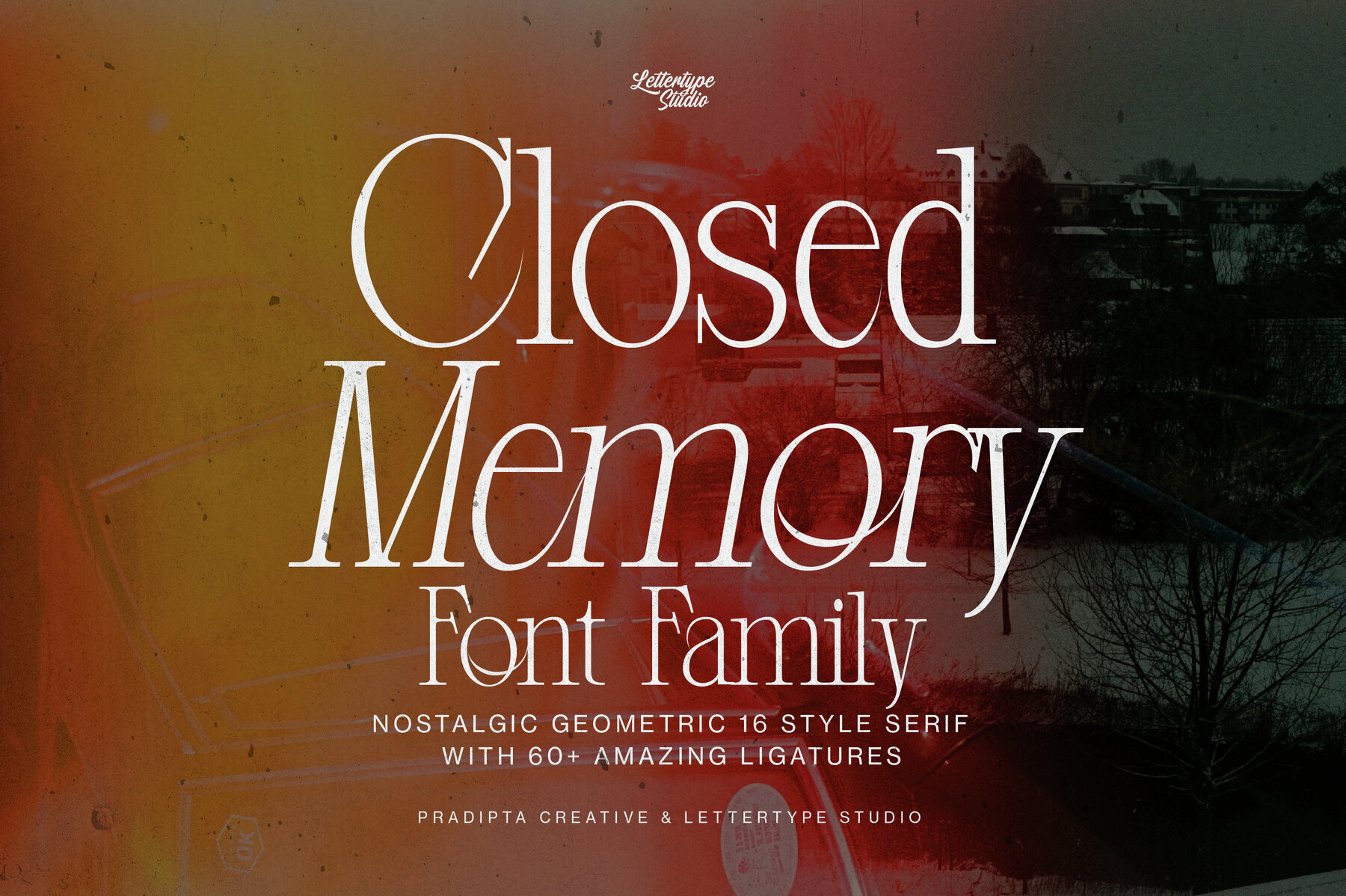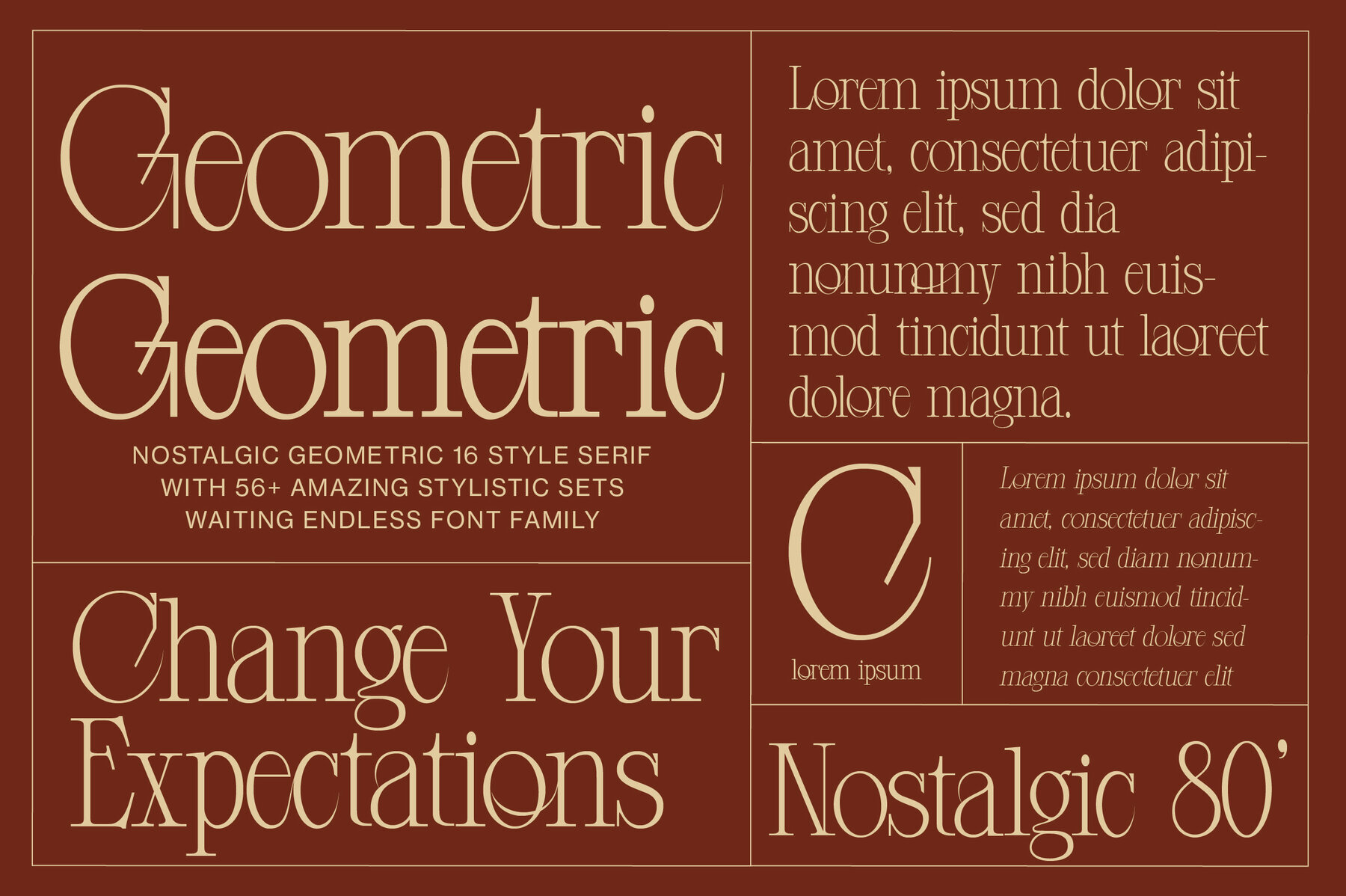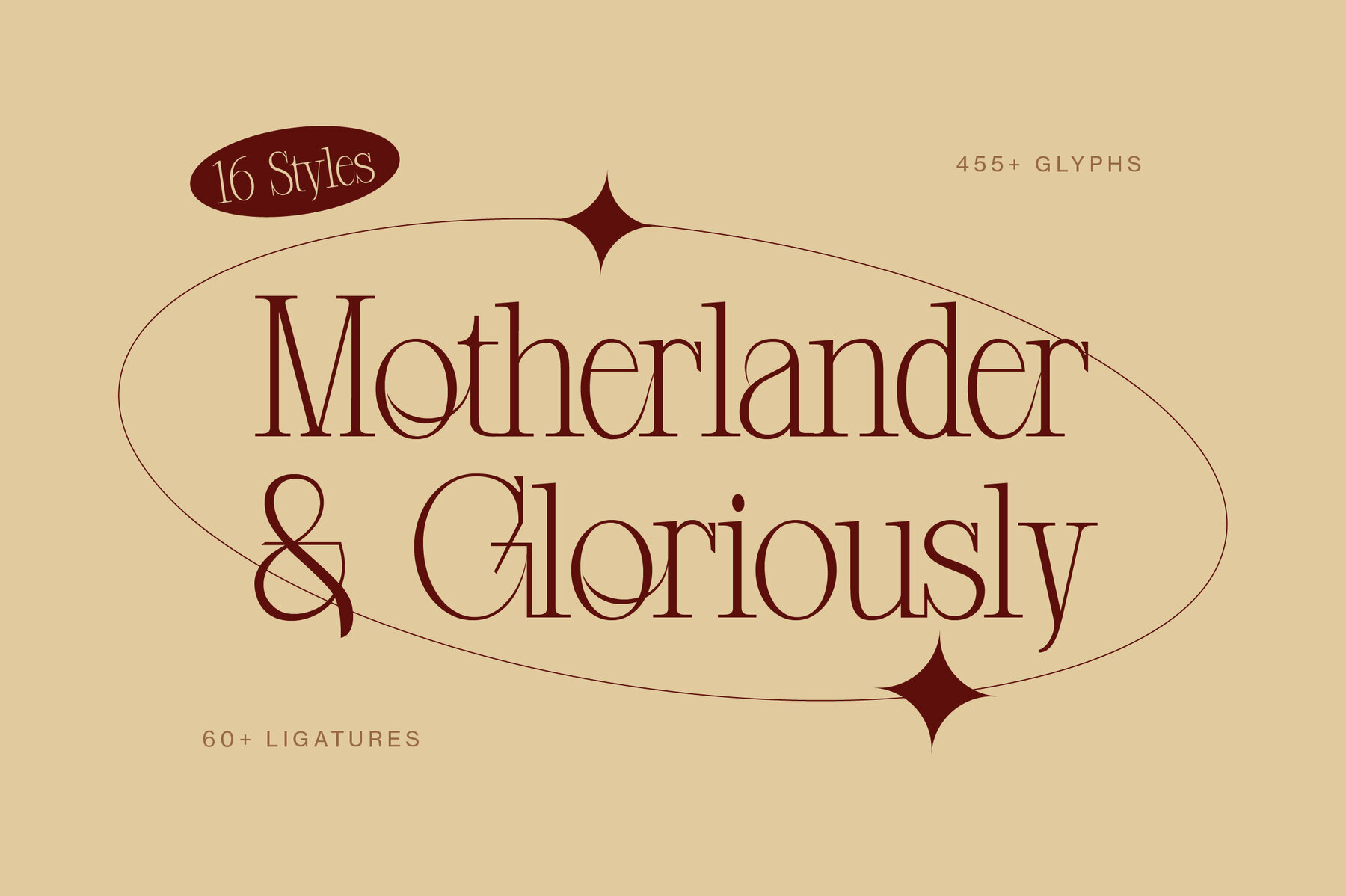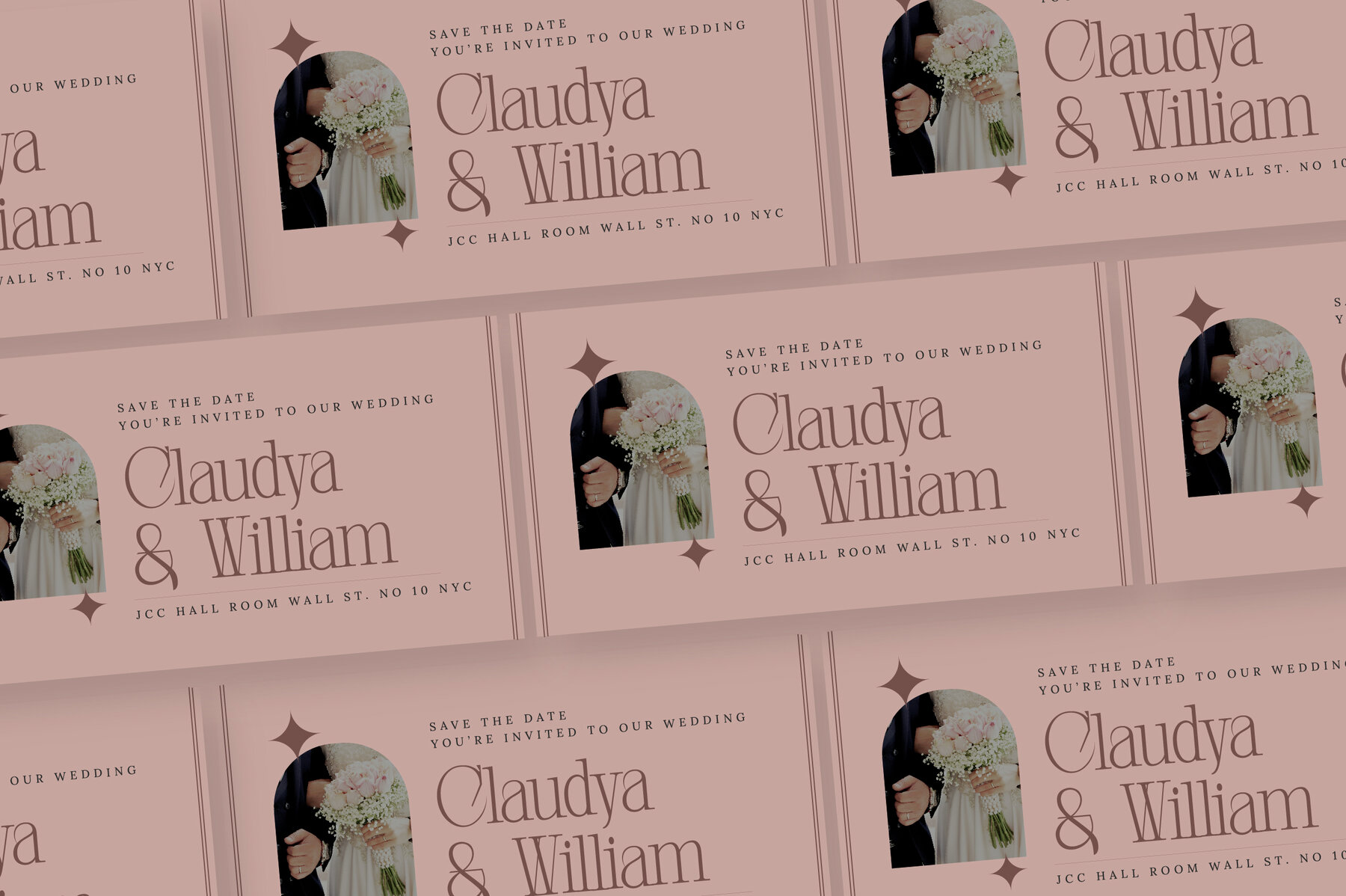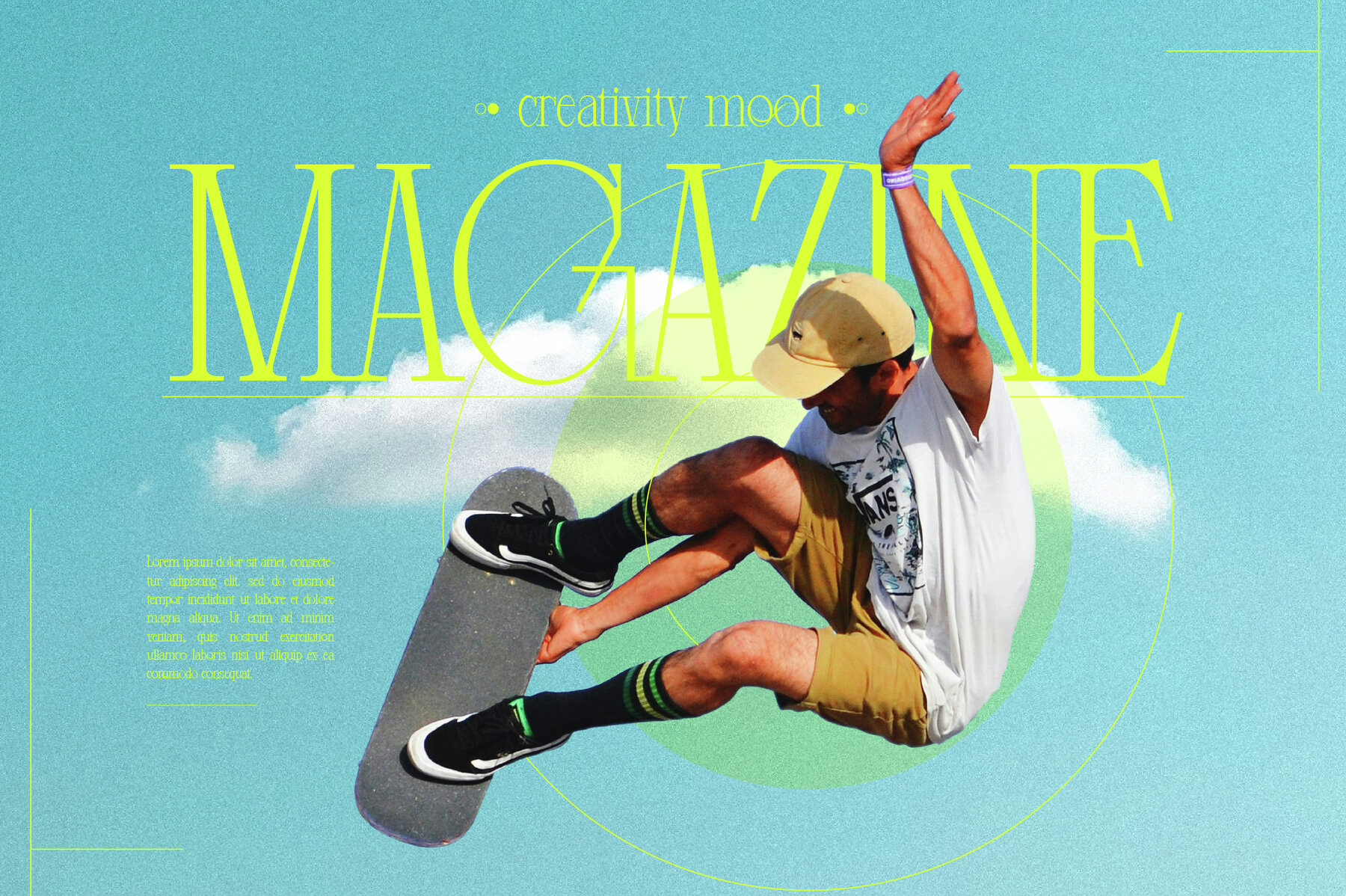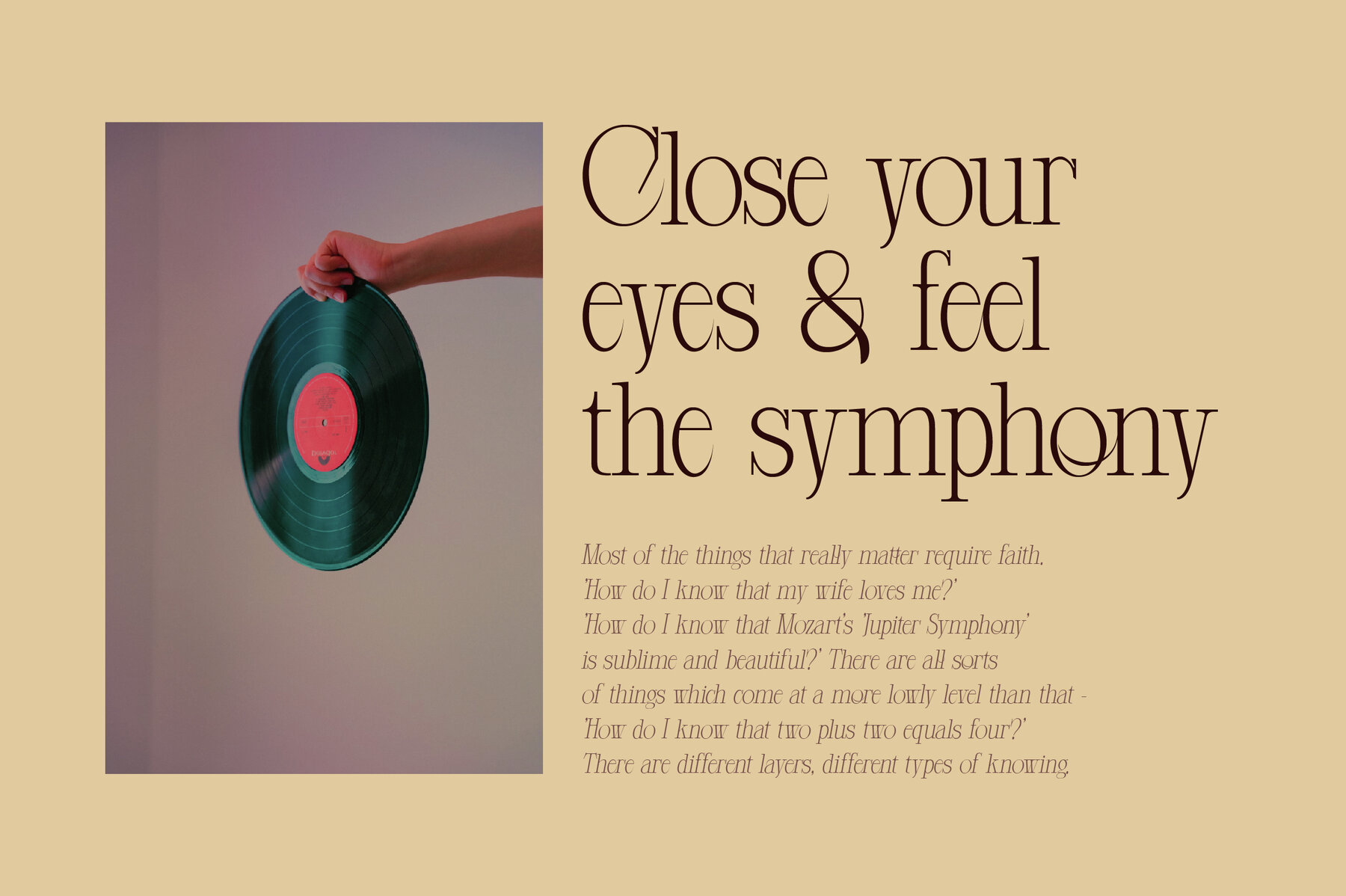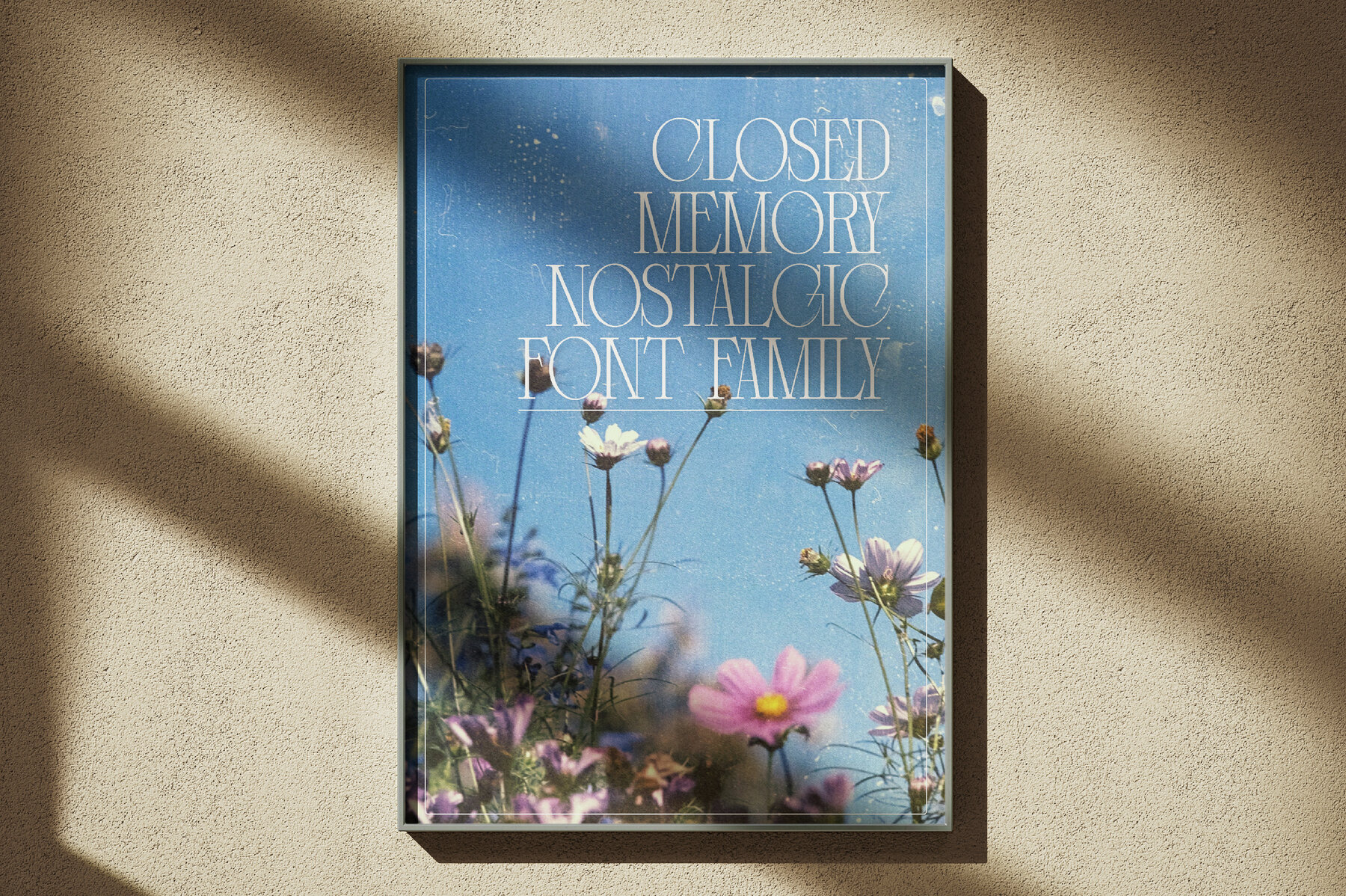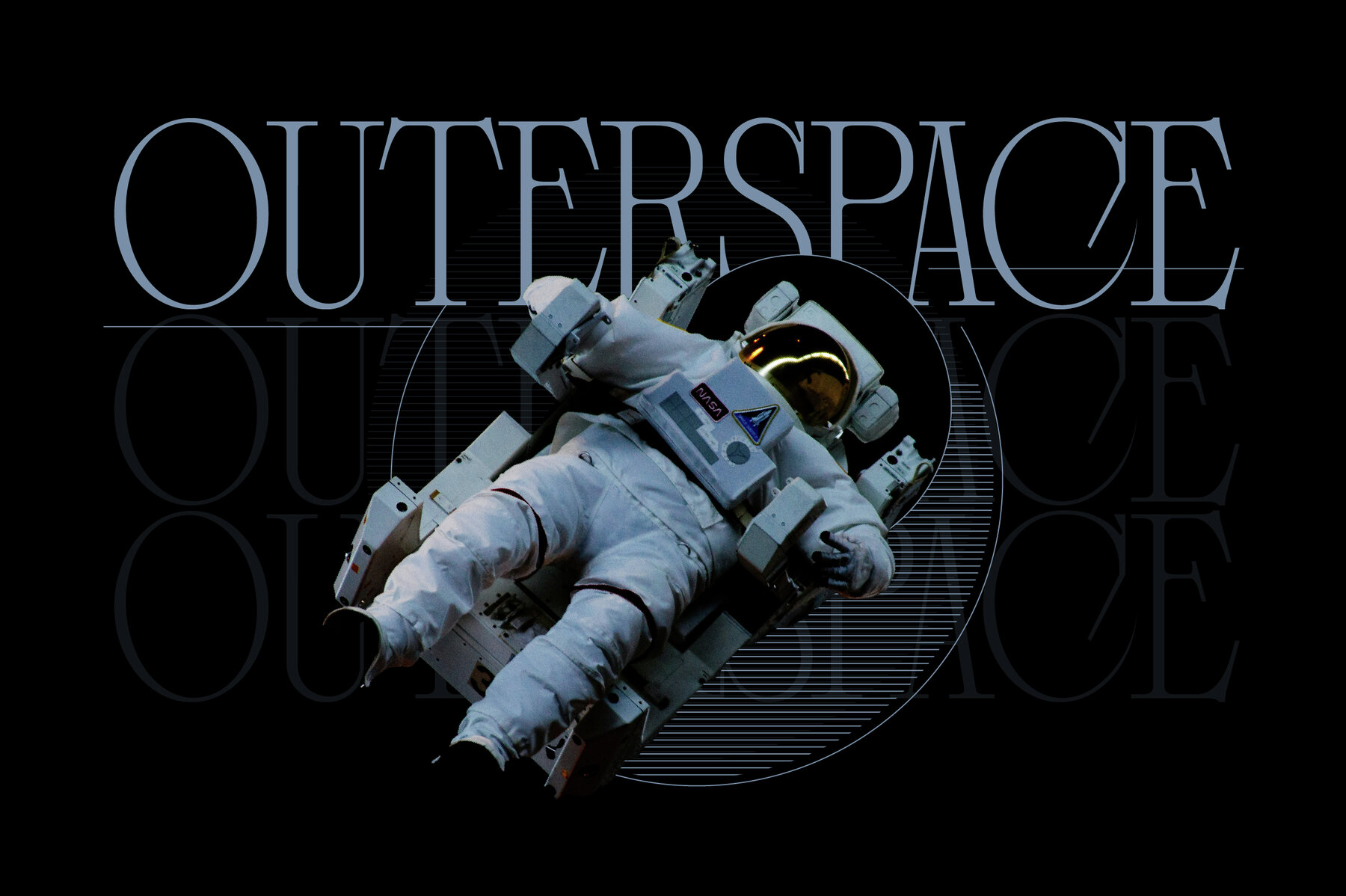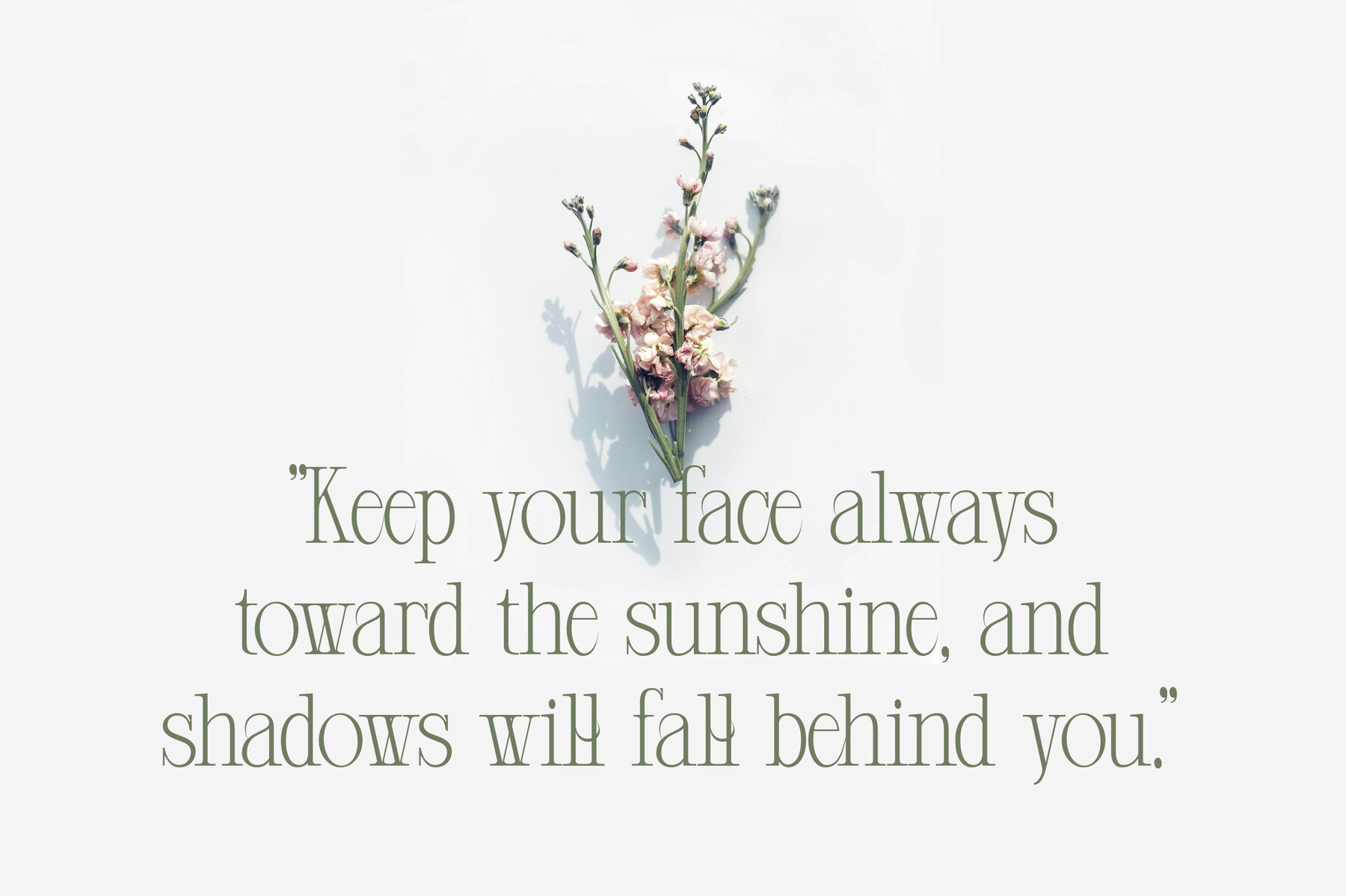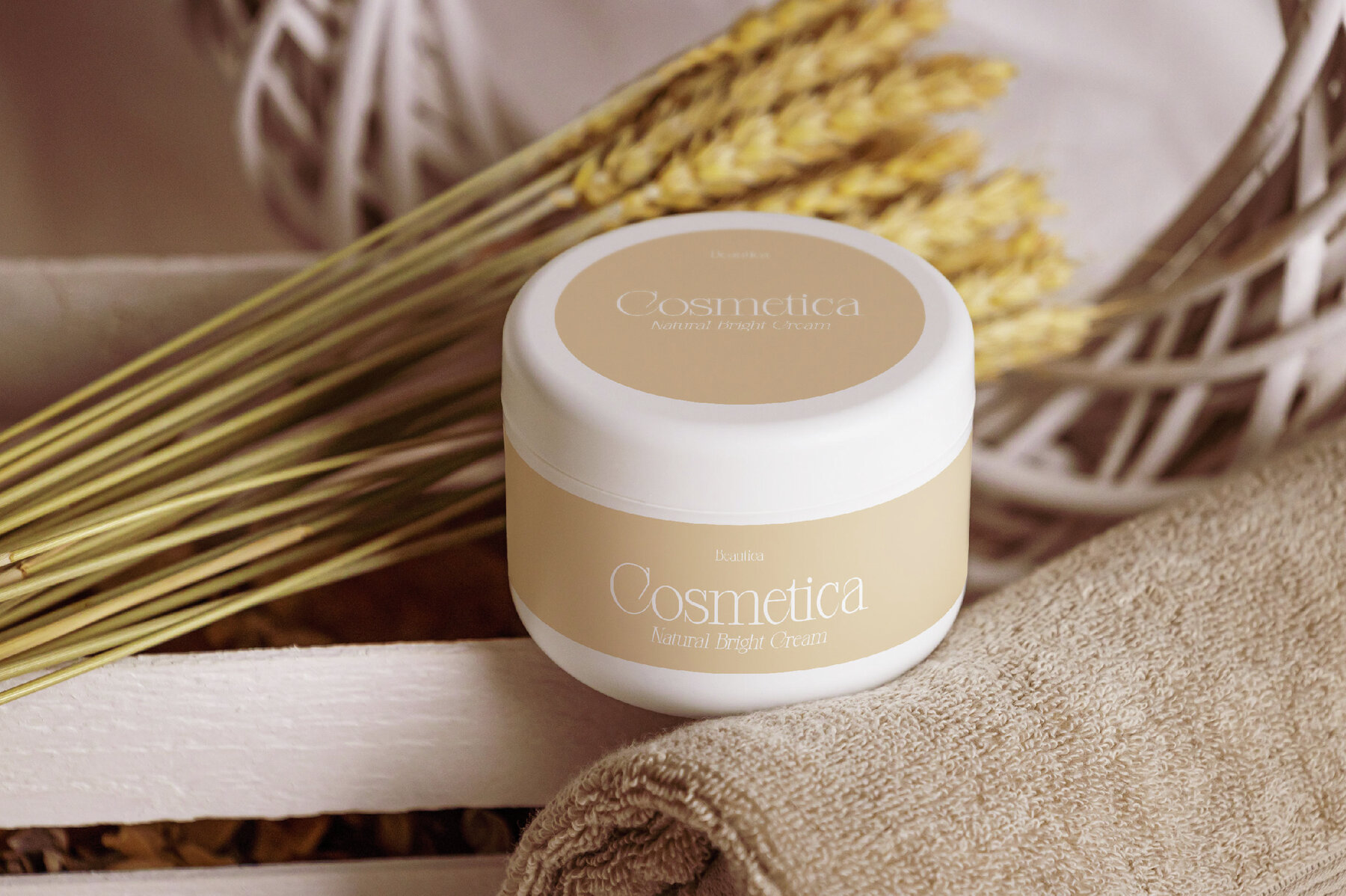
Closed Memory Font
Embrace the bold and vibrant aesthetics of the 1980s with Closed Memory, a striking serif font that exudes retro charm. Characterized by its geometric shapes and exaggerated serifs, this font captures the essence of a dynamic decade filled with neon colors, pixelated designs, and futuristic vibes. Whether you're aiming to evoke the nostalgic allure of 80s pop culture or make a bold statement, closed memory adds a unique flair to your design projects.Closed Memory: A Nostalgic Serif Font